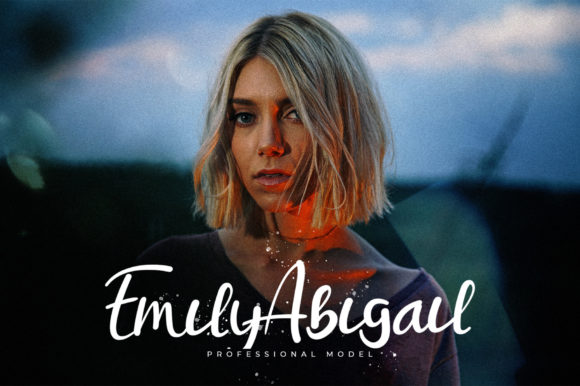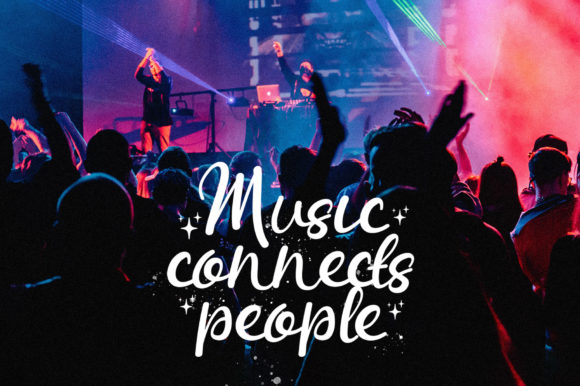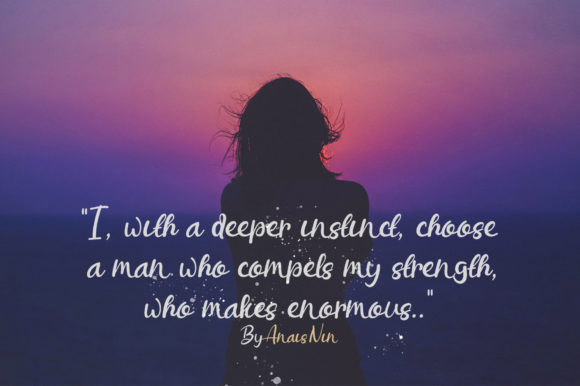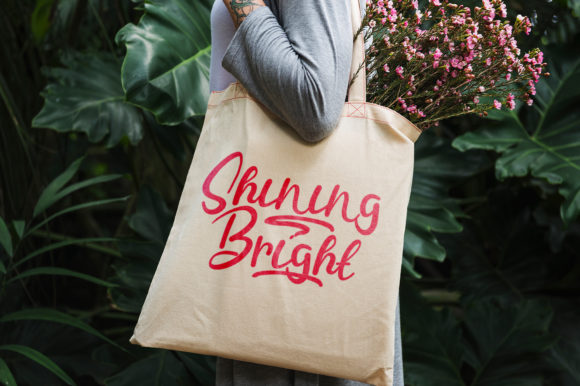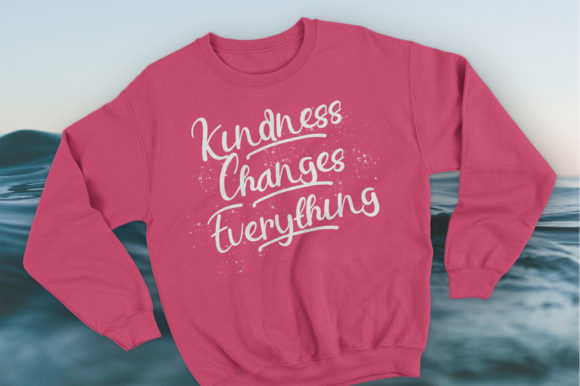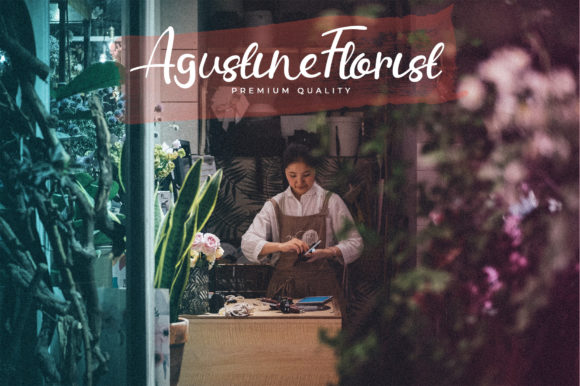
Introduction to Respalo Font
Respalo is a cursive and beautiful handwritten font, crafted to give your headlines and logotype projects a stylish touch.
This font reads as strong, confident, and dynamic and can add tons of nostalgic character to your designs .